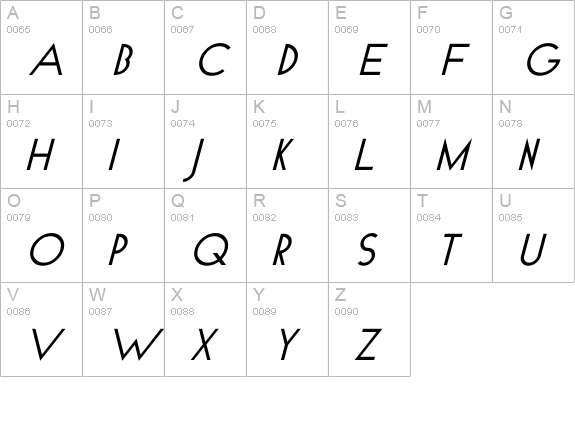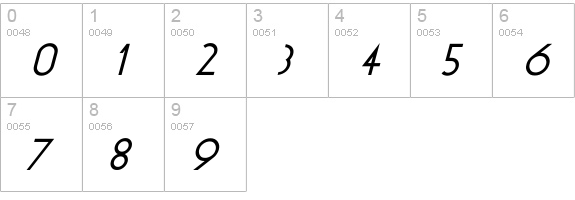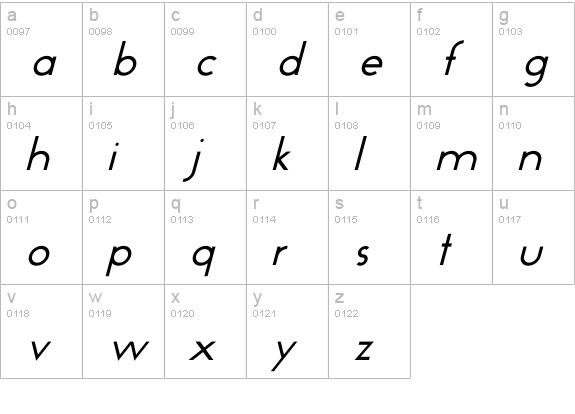
GeoPlain Italic is a distinctive, italic variant in the GeoPlain typeface family \xE2\x80\x94 well suited to design and typography projects.
Introducing GeoPlain Italic font, a sleek and modern typeface that adds a touch of sophistication to any design project. With its clean lines and elegant curves, GeoPlain Italic exudes a sense of style and professionalism. Whether you're designing a logo, website, or print materials, this versatile font is sure to make a lasting impression. The best part? GeoPlain Italic font is completely free to download at FontsMarket.com. Simply visit the website and enhance your creative projects with this stunning typeface without breaking the bank. Don't miss out on the opportunity to elevate your designs with the timeless elegance of GeoPlain Italic font. Download it today and take your work to the next level!